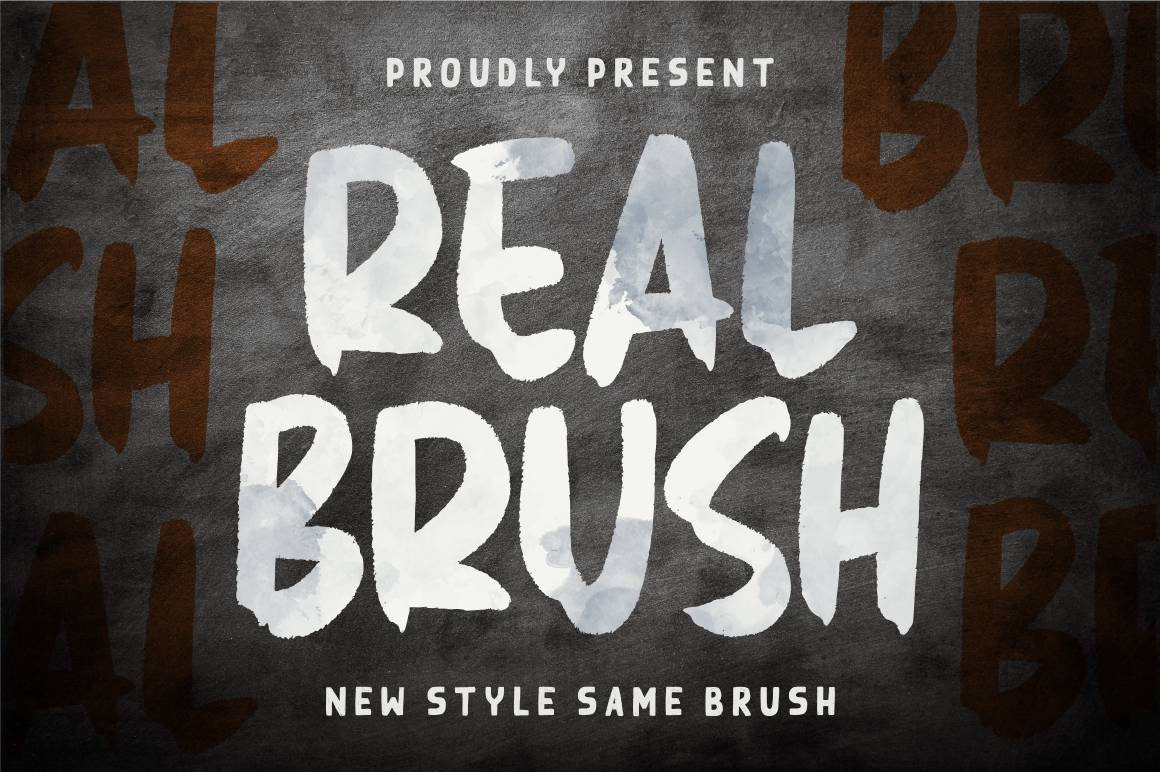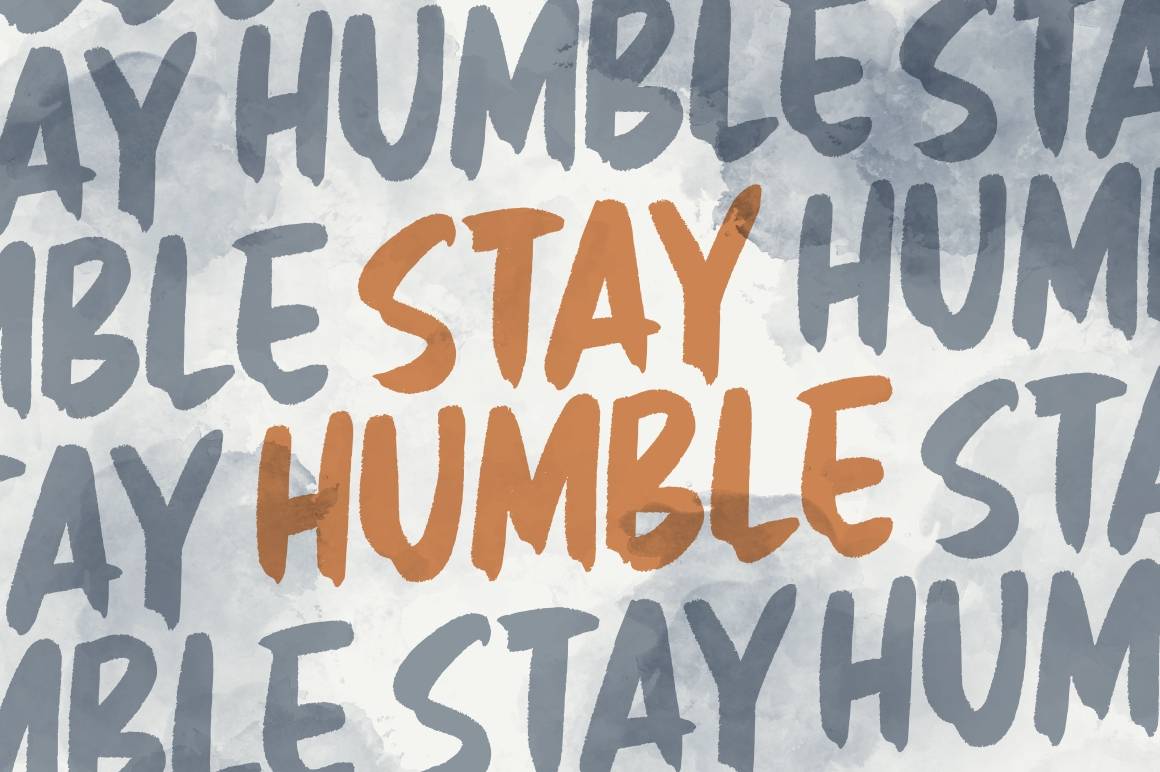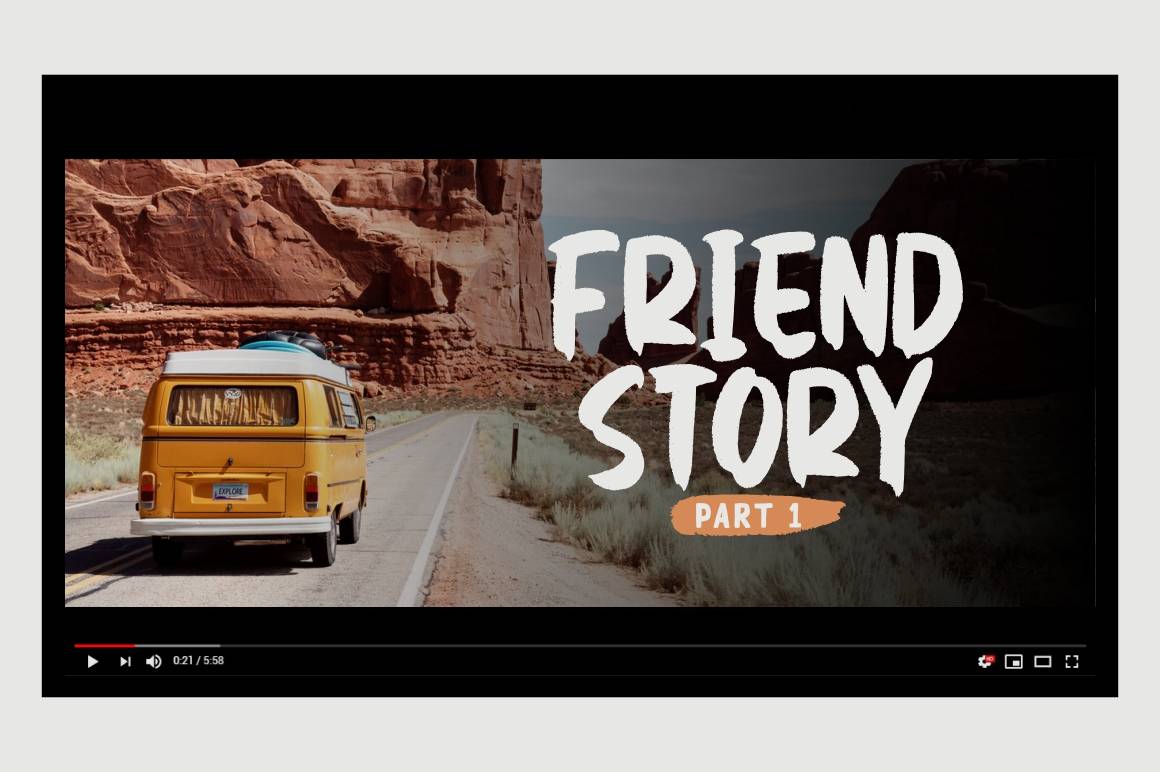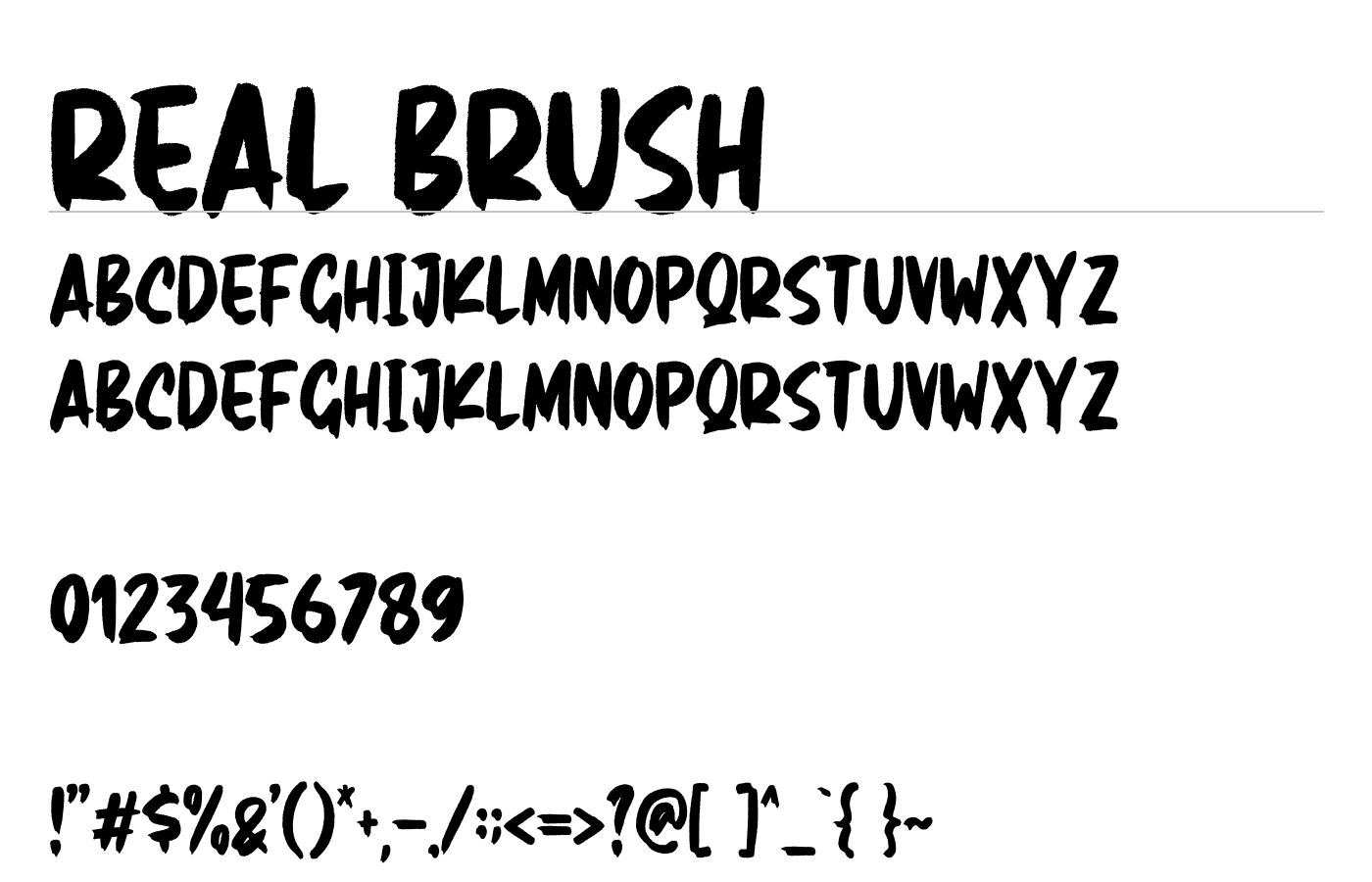
Real Brush is a bold, expressive brush script font that mimics authentic hand-painted lettering with strong, textured strokes and an energetic feel. Its thick, dynamic lines and casual style make it perfect for creative projects, branding, and headlines where a lively, handcrafted look is desired. This font works well in artistic, informal, or urban designs that need a touch of personality and visual impact.
Real Brush Font
About Real Brush Font
| Font family | Real Brush Font |